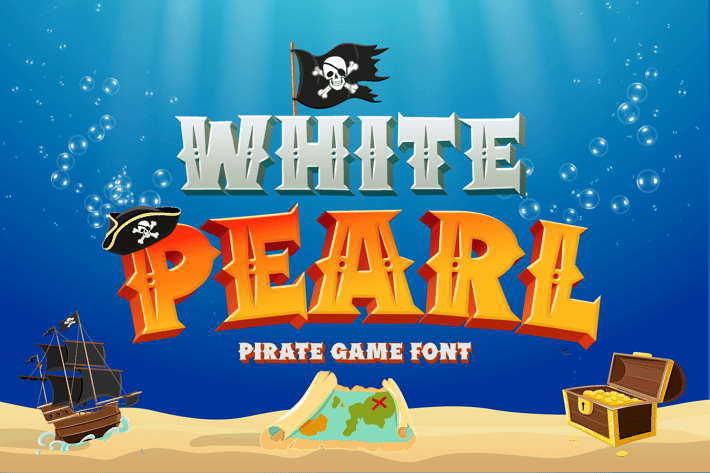
White Pearl - Gaming font
White Pearl - Pirate Gaming Font
White Pearl is a pirate-style display font with bold proportions, cartoonish flair, and adventurous energy—designed to immediately spark curiosity and action. Its chunky, playful letterforms with rounded edges feel straight out of a treasure map, making it a perfect match for gaming interfaces, children’s books, or adventure-themed branding. The font’s whimsical geometry and animated uppercase rhythm provide maximum impact on screen and print, while its low contrast and dynamic baseline ensure legibility and engagement across all creative uses.
White Pearl is built for high-engagement designs that need a characterful, fantasy-driven look. From mobile adventure games and pirate-themed YouTube thumbnails to animated titles and packaging for kids’ products, this font works hard to make your design loud, fun, and unforgettable. Whether you’re a brand designer, app developer, or storyteller, this font will help you deliver visual delight and thematic impact in every letter.
Key Features :
Pirate Playfulness in Every Curve
- High-energy design inspired by treasure hunts and seafaring quests
- Rounded, bouncy shapes evoke friendliness and imagination
Ideal for Adventure & Gaming Content
- Looks great in action buttons, level titles, and game UIs
- Kid-friendly tone without compromising clarity
Engaging Storybook Feel
- Works beautifully for illustrated covers, fantasy maps, or playful signage
- Matches with props, icons, or thematic illustrations
- Basic latin A-Z and a-z
- Numbers
- PUA Encoded Characters